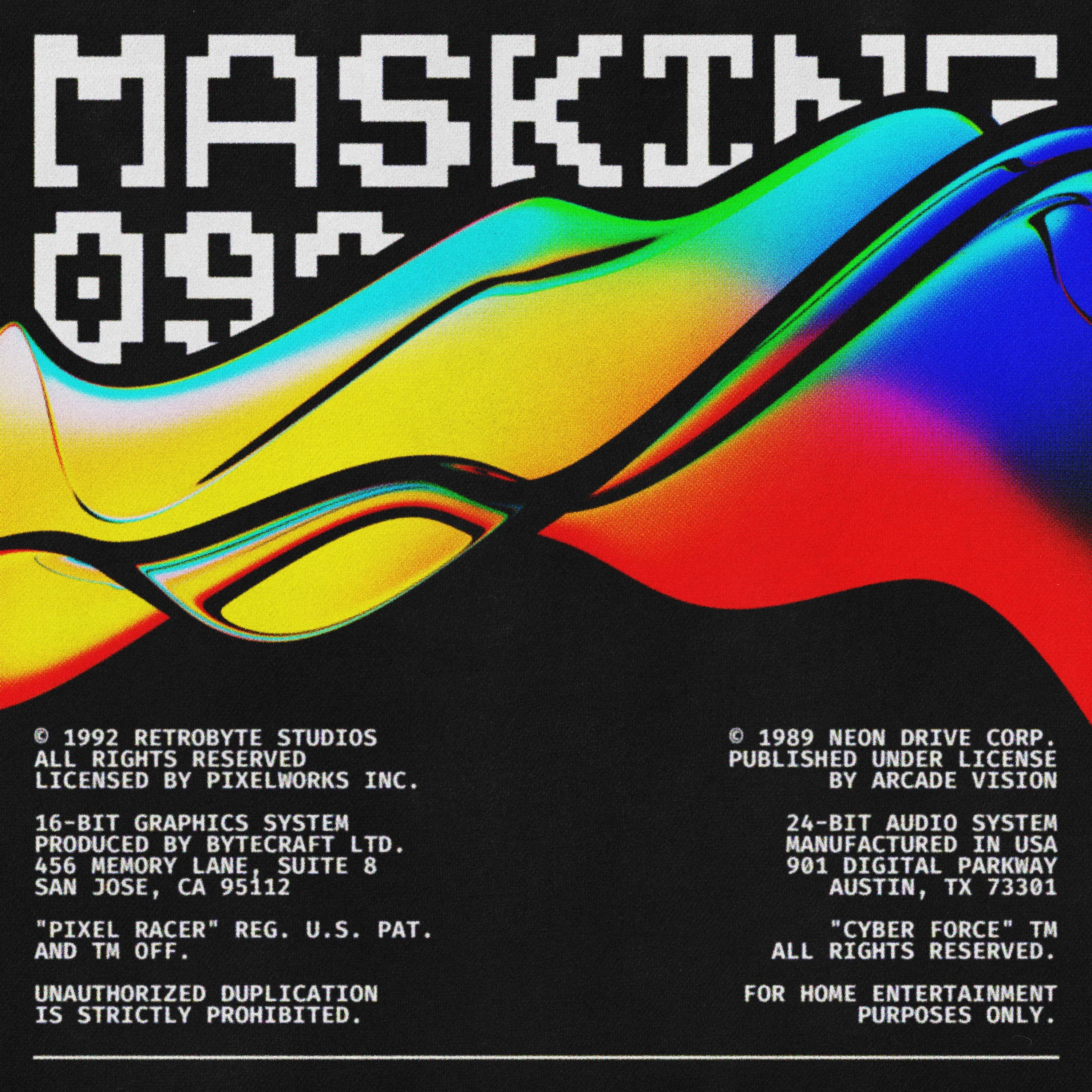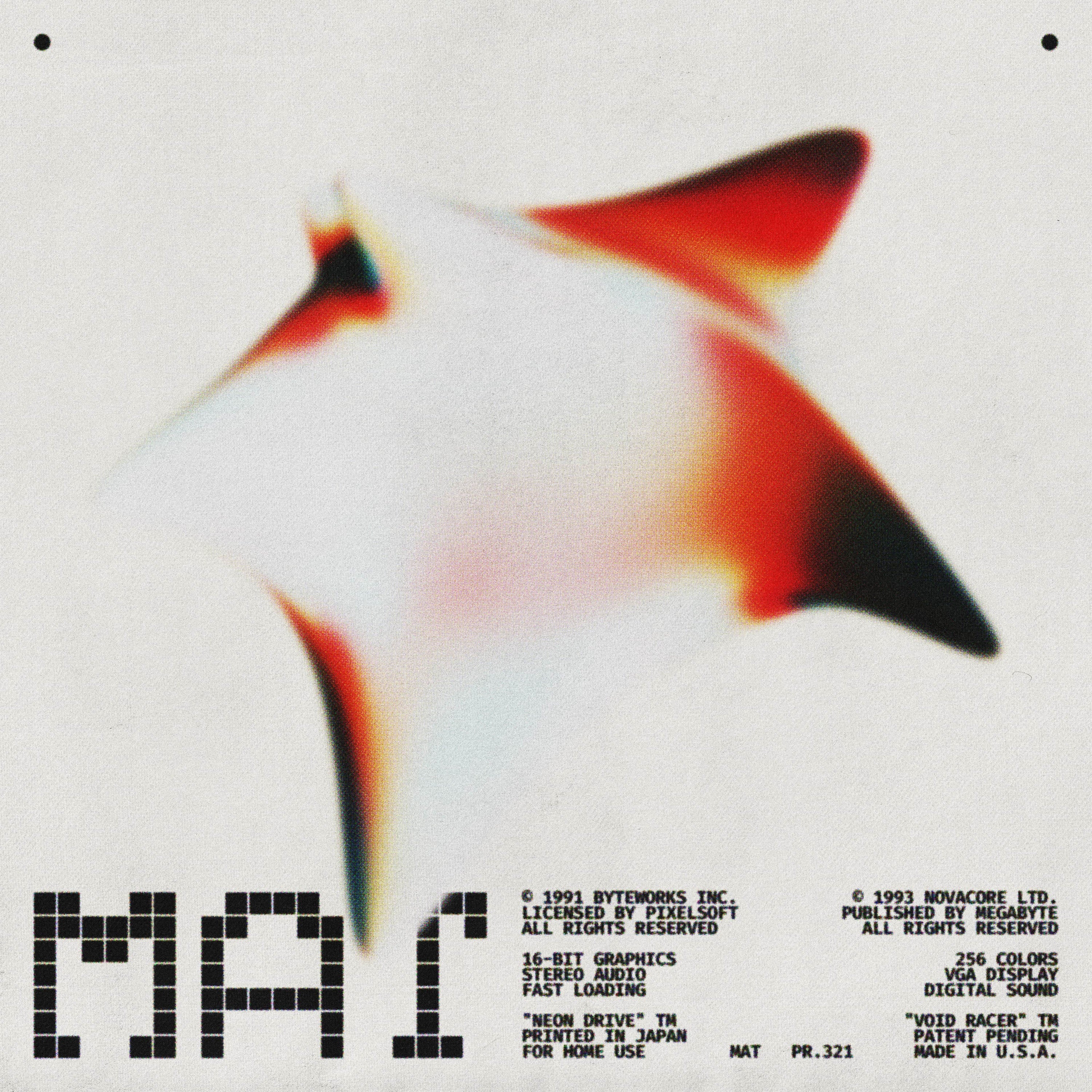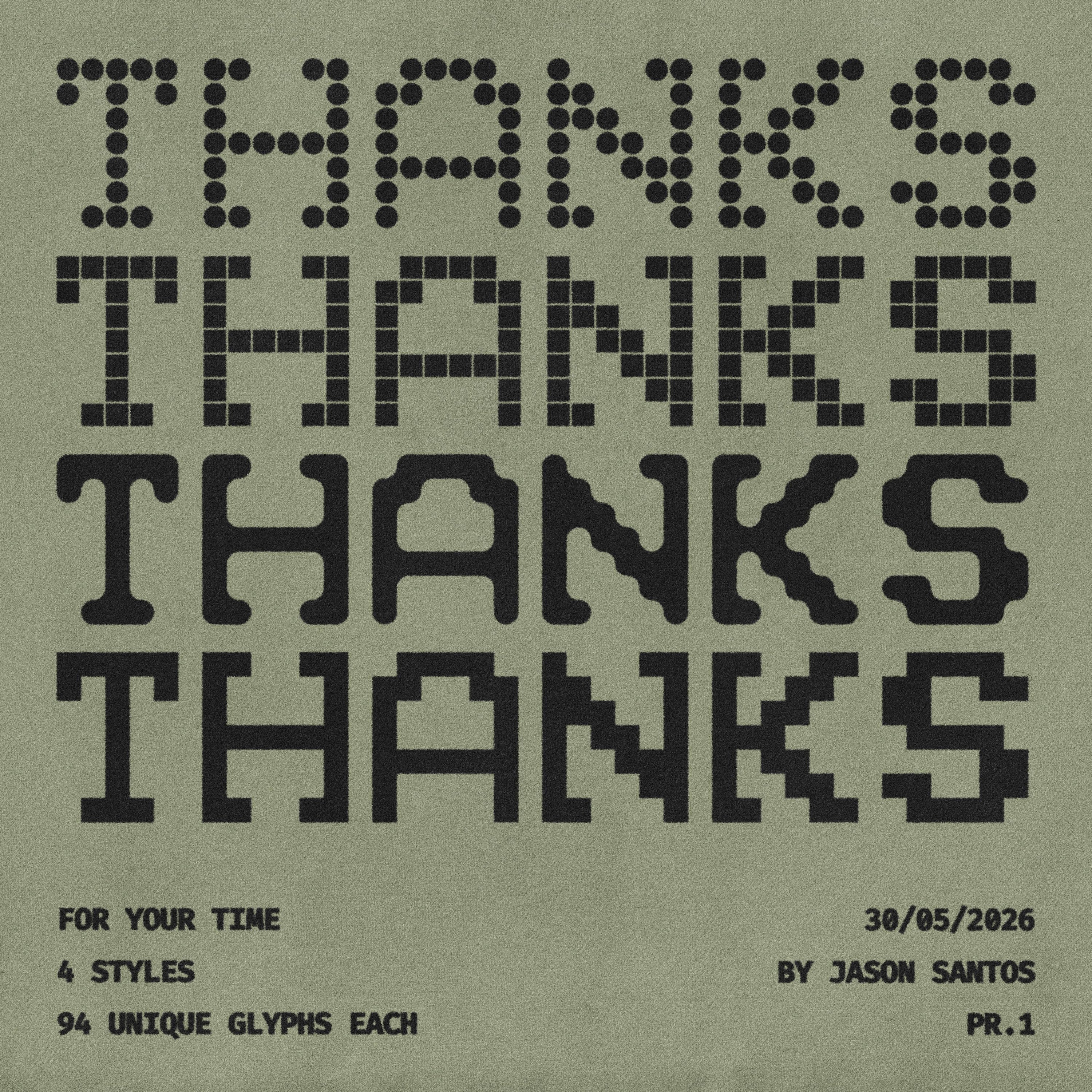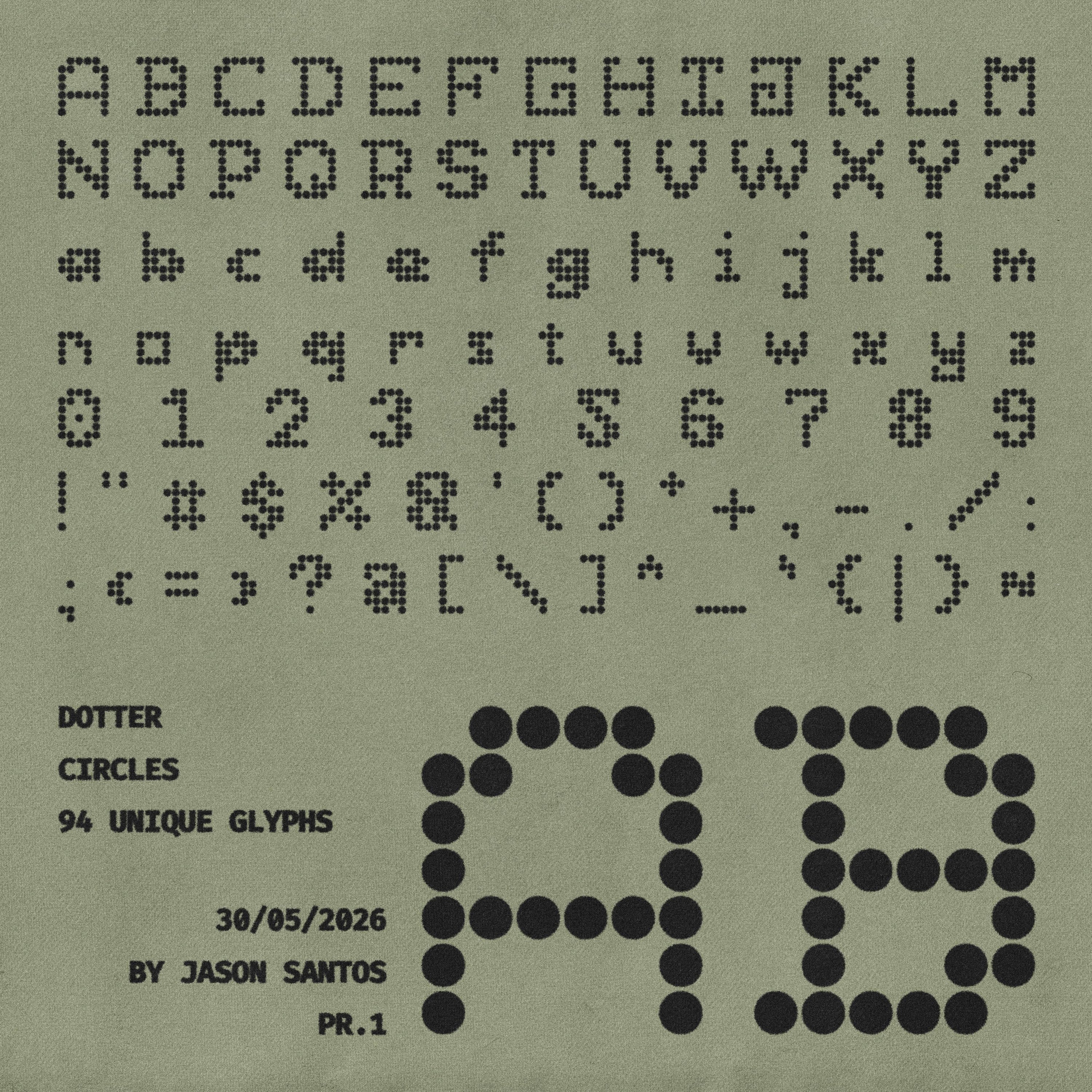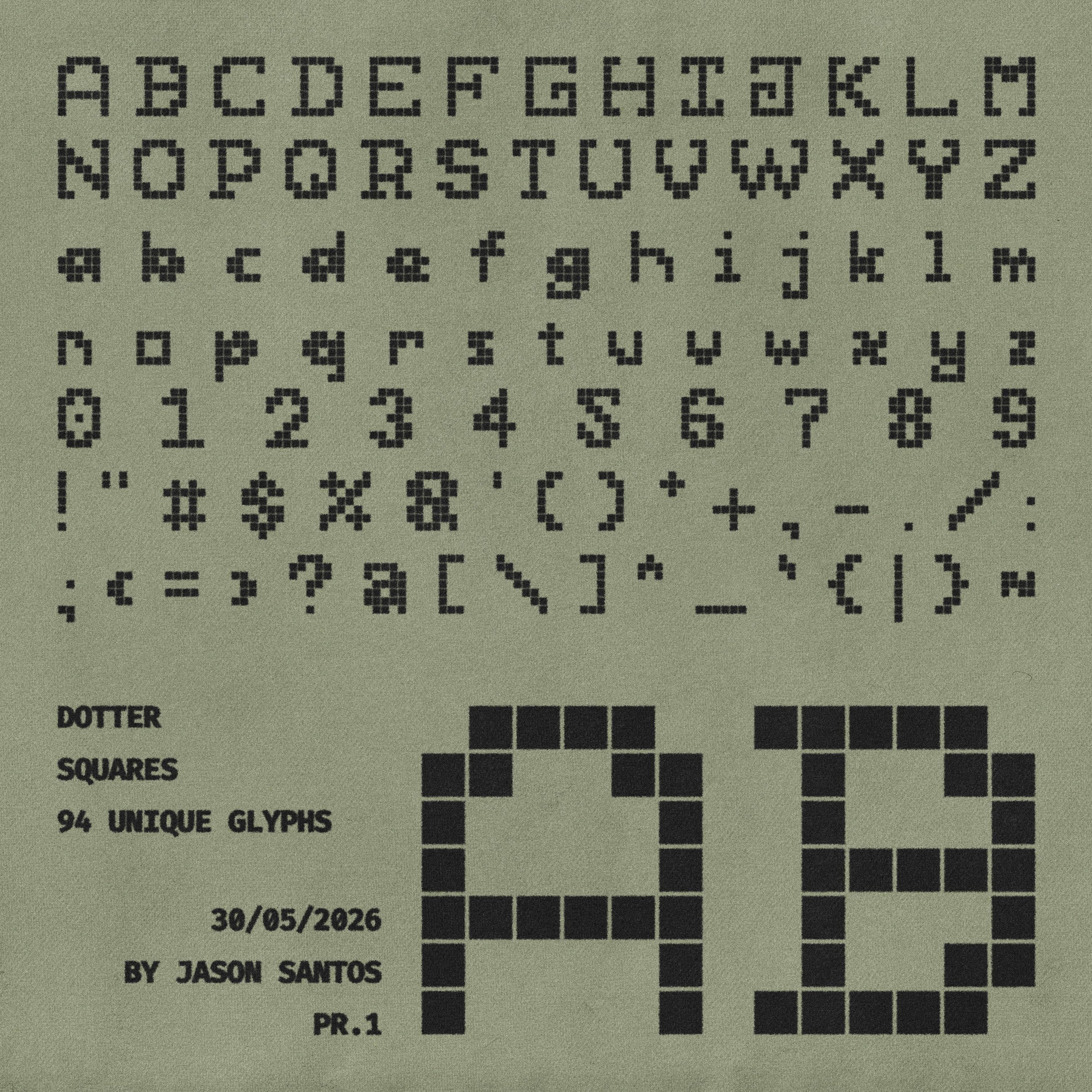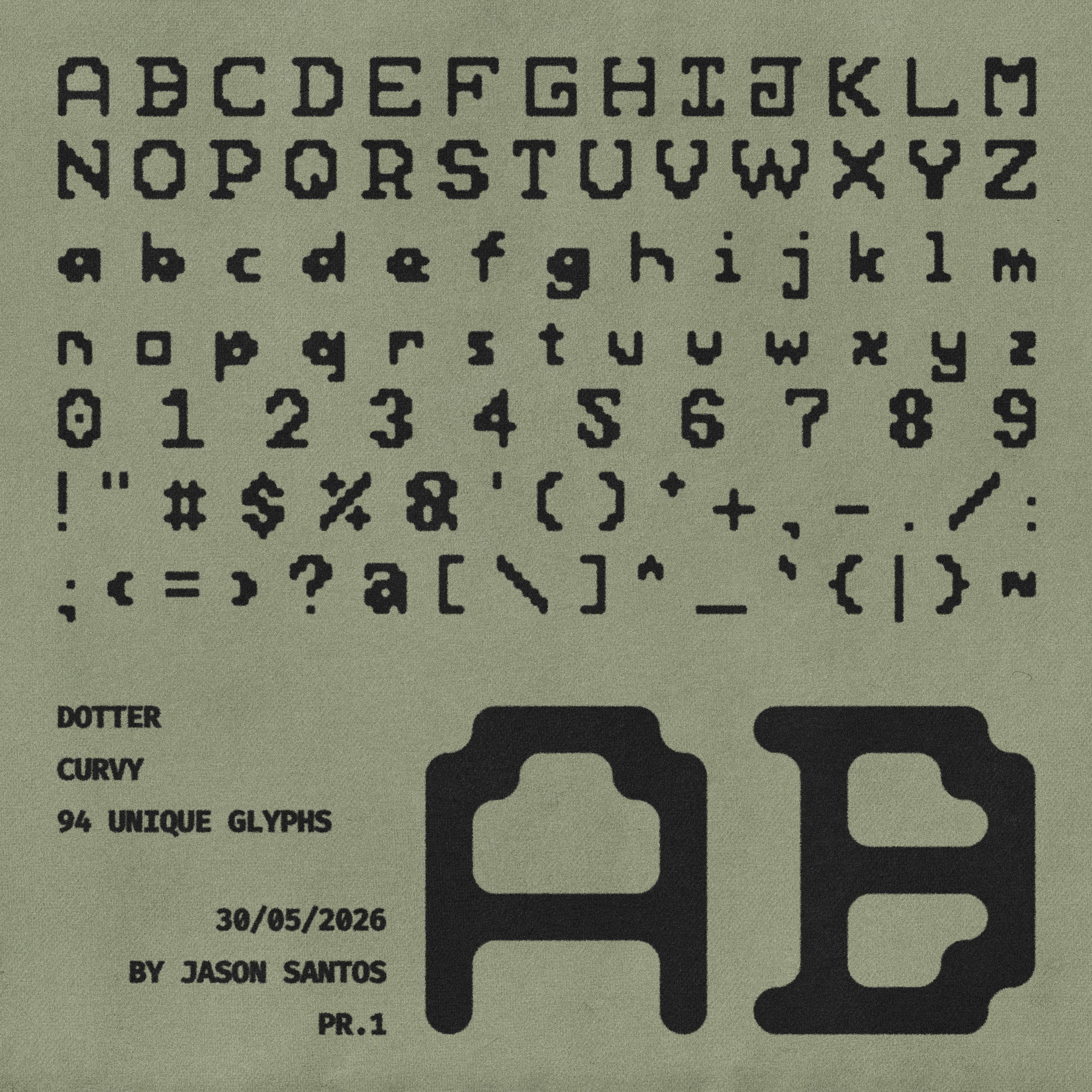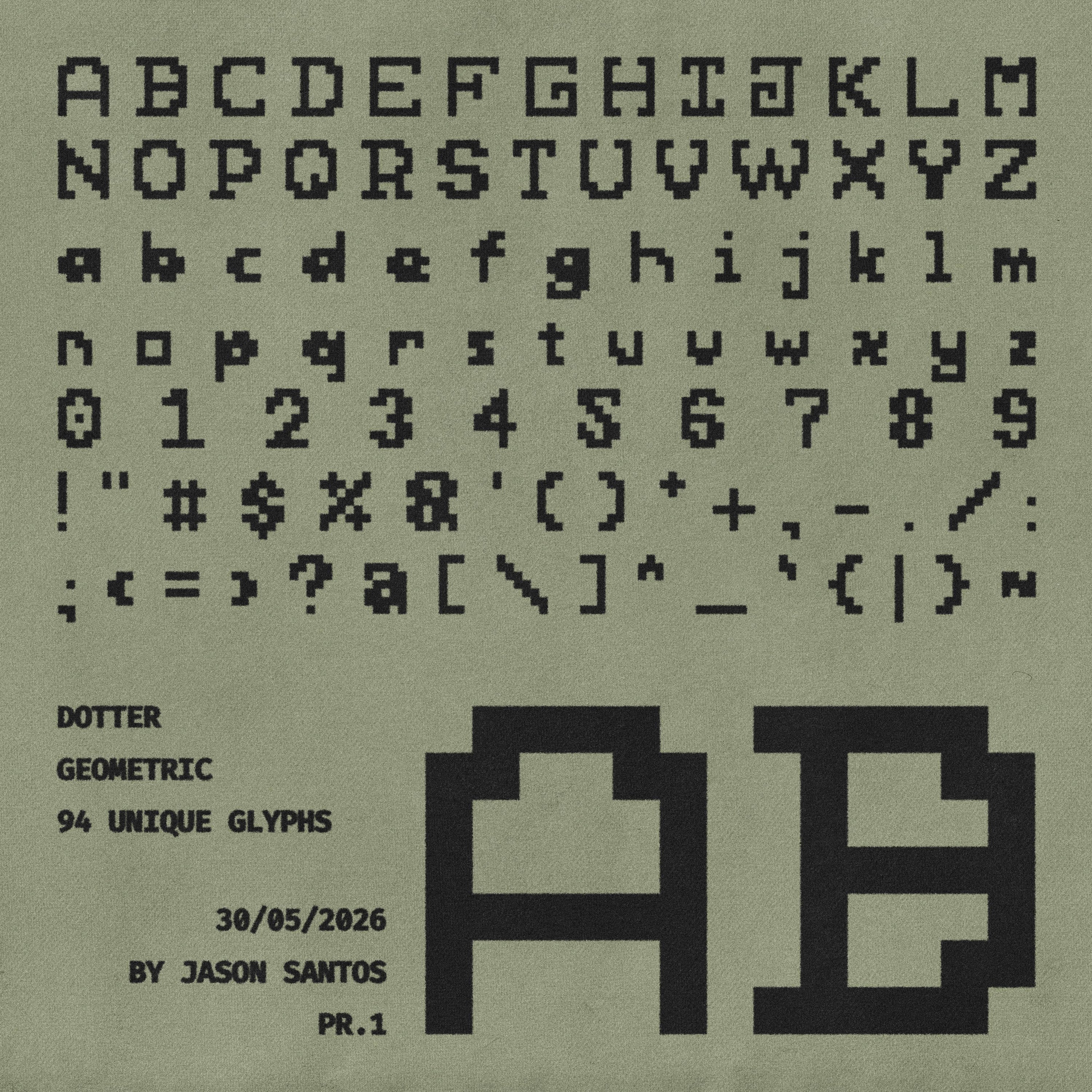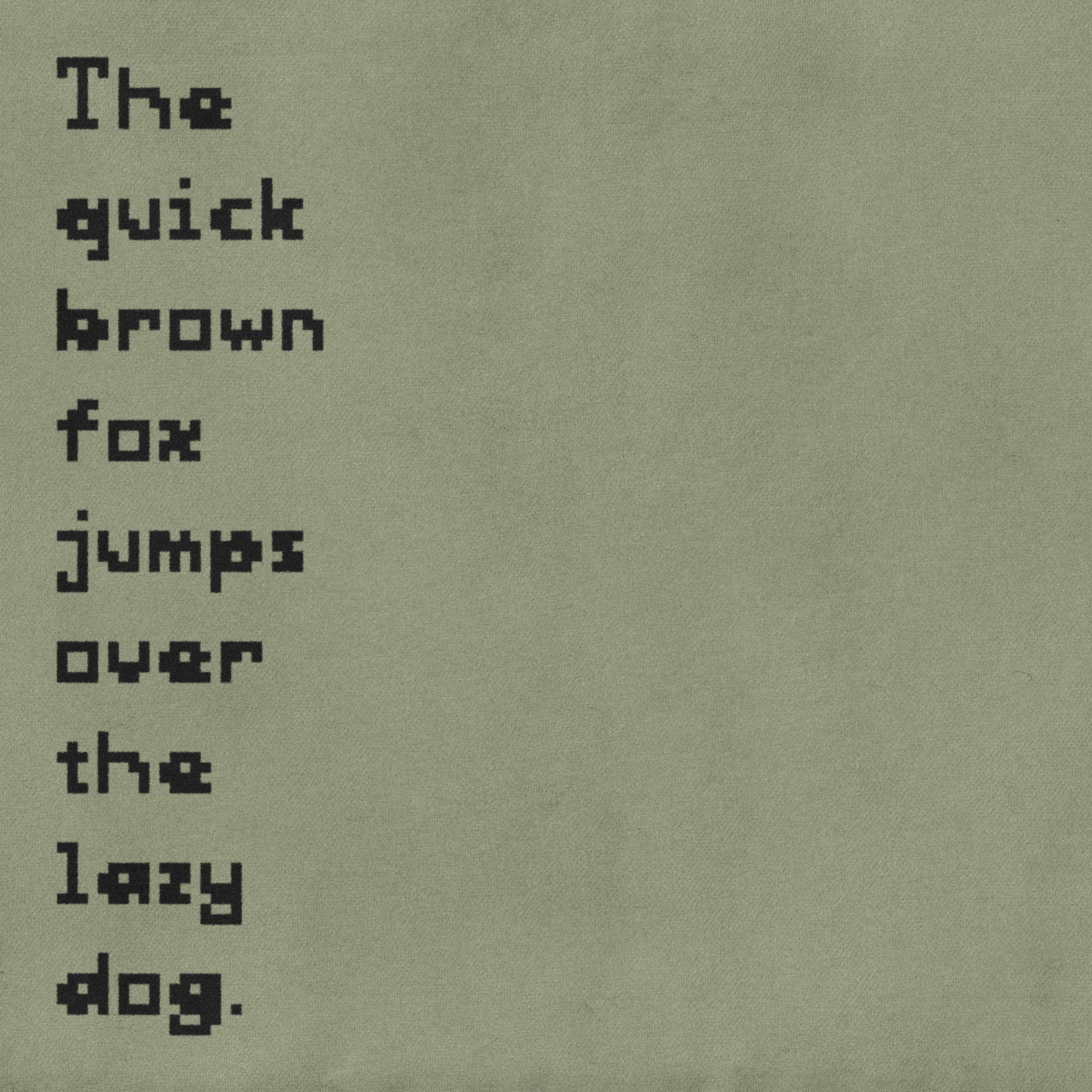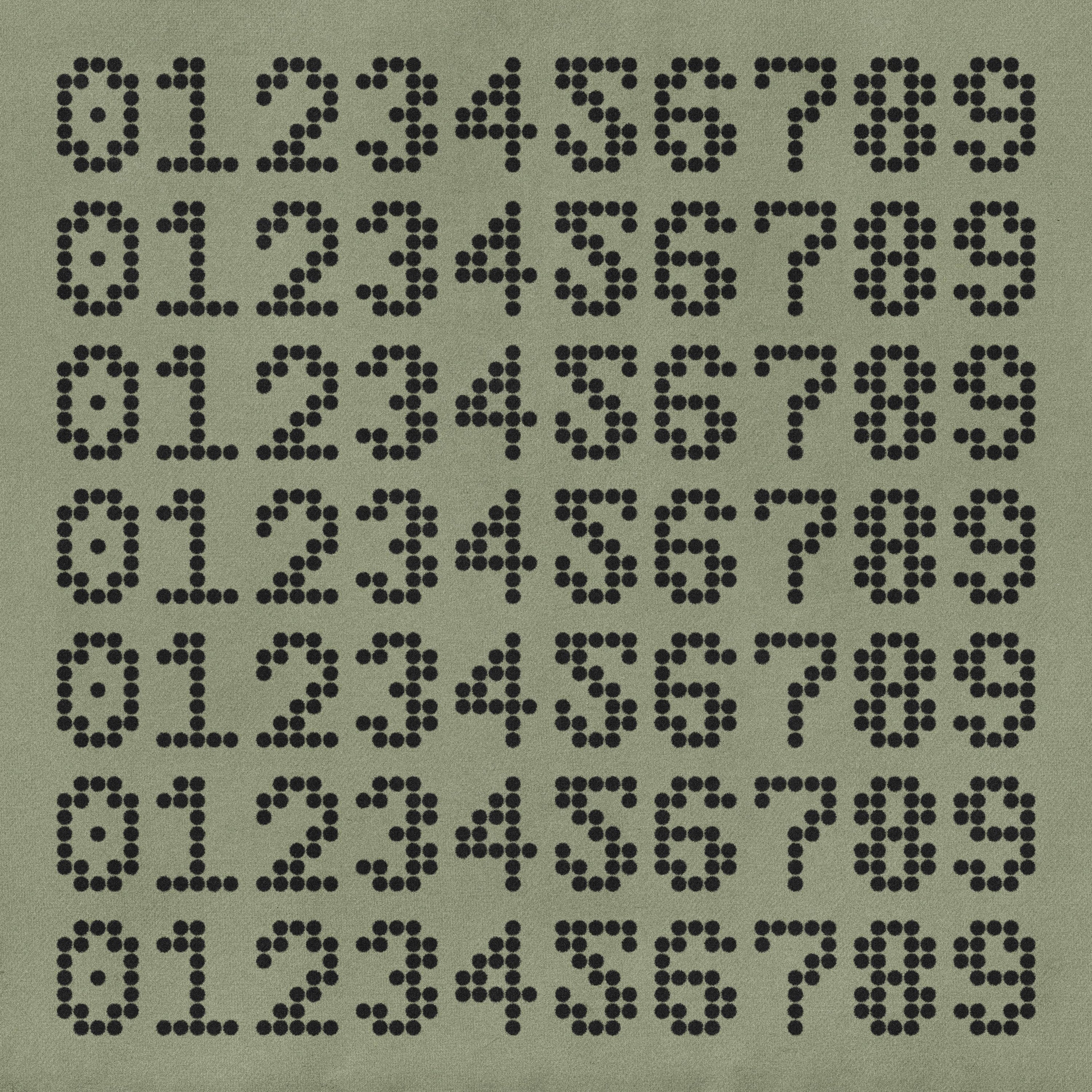
Dotter Typeface
Dotter is an experimental textured display typeface built entirely from carefully arranged dots. Inspired by matrix printing, digital screens, and halftone processes, it transforms typography into a detailed graphic texture.
Featuring four unique styles — Circles, Squares, Curvy, and Geometric — Dotter allows designers to explore different levels of rhythm, structure, and visual complexity. Each variation creates a distinctive appearance while maintaining a strong contemporary identity.
Perfect for posters, album covers, branding, editorial layouts, digital artwork, packaging, and experimental typography projects.
• 96 Glyphs
• 4 Styles (Circles, Squares, Curvy, Geometric)
• Lowercase
• Symbols
• Mathematics